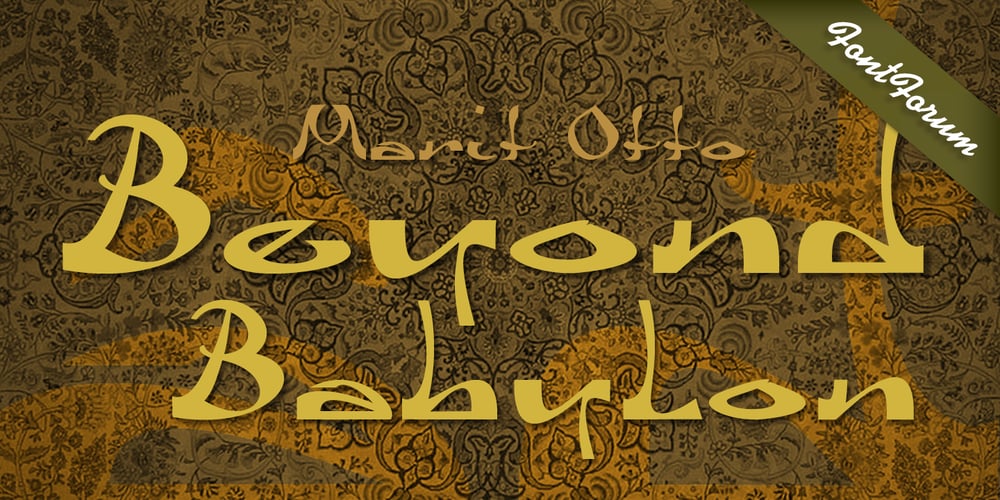
Beyond Babylon Font Family was designed by Marit Angenita Otto and published by URW Type Foundry. Beyond Babylon contains 1 styles and family package options. Babylon was a civilisation that stretched from Bagdad to the Persian Gulf. There is an Old and new Babylonia, the era of Babylon civilization and the biblical Babylon. The oldest scriptures to be found since the rise of civilisation are Babylonic. The Christian, the Jewish and the Arabic culture find its origin in the Middle East. And share more or less the same history, the same roots and DNA. One people, but in reality a melting pot of close related cultures whom could not be more far apart, hostile and suspicious towards each other. An eye for an eye, tooth for a tooth. One could say this disagreement is still alive today and has deeply infected all of our systems. Beyond Babylon is sculpted after Hebrew, Arabic character style elements in a European writing. It questions what happened after the great Babylonic confusion. Did the words finally come across? Did they realize the distant and gap was maybe smaller than expected. This typeface is related to my former character Eurabia. As an artist I like to play with contradictions. Use opposite elements and mould them in to one understandable piece and in addition a thought to chew on. Otherwise the experimental ore shape lovin’ typeface user could be very happy with an addition feature to the existing characters. One option more to express your selves in writing. Also this typeface is really suitable for theme writing or advertising. ———– Babylon war eine Zivilisation die sich von Bagdad bis zum Persischen Golf erstreckte. Es gibt das alte und das neue Babylon, die Ära der Babylon Zivilisation und das biblische Babylon. Die ältesten Schriften, welche seit dem Aufstieg der Zivilisation gefunden wurden, sind babylonisch. Die Christen, die Juden und die arabische Kultur finden ihren Ursprung im Mittleren Osten. Sie teilen mehr oder weniger die gleiche Geschichte, die gleichen Wurzeln und DNA: Ein Volk. Aber in Wirklichkeit waren sie ein Schmelztiegel aus eng verwandten Kulturen, welche sich nicht ferner sein könnten: feindselig und misstrauisch zueinander. Auge um Auge, Zahn um Zahn. Man könnte behaupten, diese Unstimmigkeit bestehe noch heute und hätte all unsere Systeme stark infiziert. Beyond Babylon ist eine europäische Schrift, geformt nach hebräischen und arabischen Stilelementen der Zeichen. Sie hinterfragt die Geschehnisse nach der der Babylonischen Sprachverwirrung. Kamen die Worte endlich an? Haben sie realisiert, dass die Weite des Spalts zwischen ihnen vielleicht geringer war als erwartet. Diese Schrift ist verwandt mit meinen vorigen Zeichen der Eurabia. Als Künstlerin mag ich es mit Widersprüchen zu spielen, gegensätzliche Elemente zu einem vernehmbaren Ganzen zu verschmelzen und einen kniffligen Gedanken zu erzeugen. Andererseits könnte der experimentelle oder formenverliebte Nutzer sehr glücklich über eine zusätzliche Funktion der bestehenden Zeichen sein. Eine weite Möglichkeit sich im Schreiben auszudrücken. Diese Schrift ist auch für Werbung sehr geeignet.